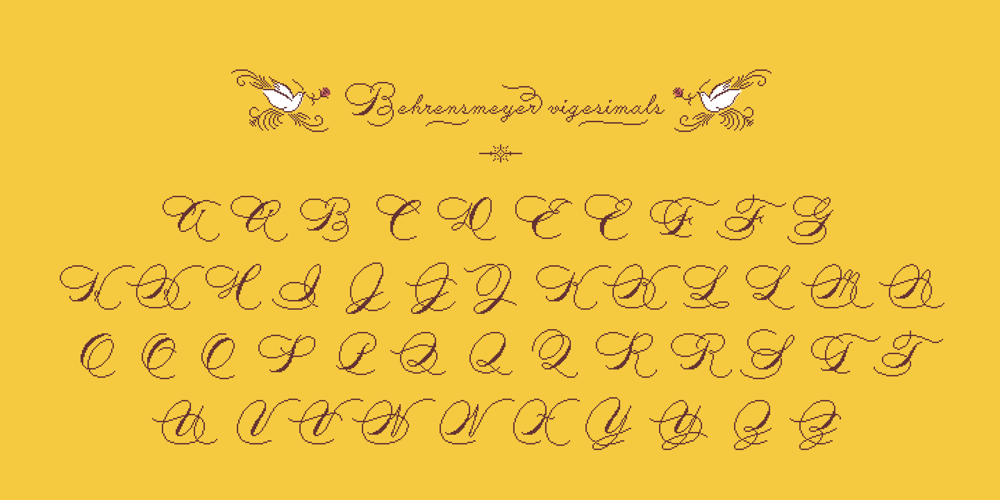
Behrensmeyer Vigesimals
Behrensmeyer Vigesimals font
Behrensmeyer Vigesimals Font Family was designed by Ryoichi Tsunekawa and published by Dharma Type. Behrensmeyer Vigesimals contains 1 styles and family package options. This 8-bit pixel font is designed with respect for 80s game designers and the pixel font pioneers in middle 90s. And for the calligrapher H.P. Behrensmeyer & Charles Paxton Zaner. Use at size 20 pixels or multiples of 20 and anti-alias off is recommended. List of our Pixel Font Project. ·Flat10 Antique ·Flat10 Artdeco ·Flat10 Arts&Crafts ·Flat10 fraktur ·Flat10 Holy ·Flat10 Holly ·Flat10 Segments ·Flat10 Stencil ·Flat20 Gothic ·Flat20 Headline ·Flat20 Hippies ·Flat20 Streamer ·Behrensmeyer Vigesimals ·Civilite Vigesimals